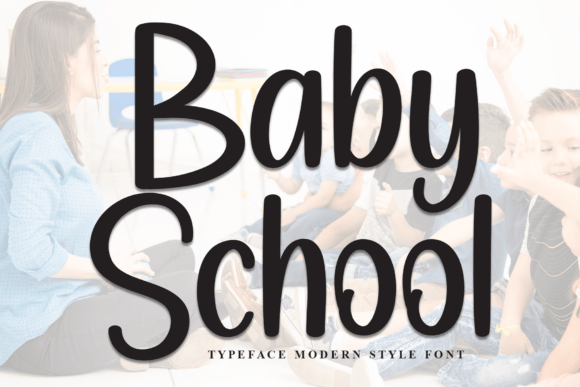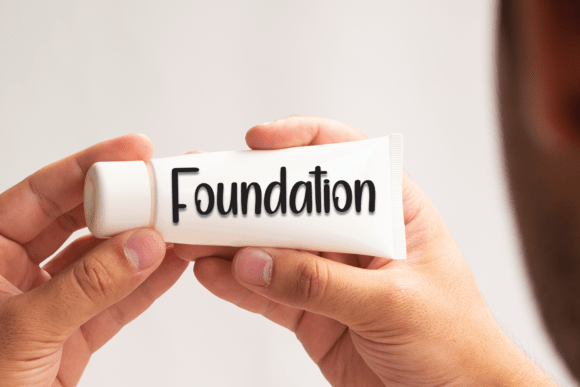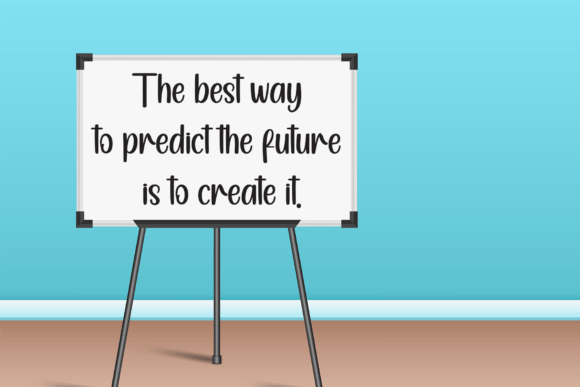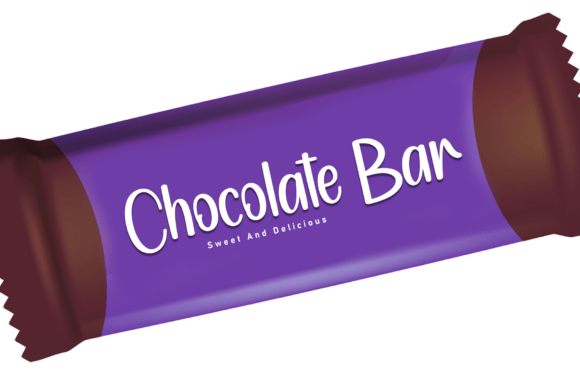
Baby School Font: Cute Handwritten Typography for Playful Designs!
About the Baby School Font
Let us introduce you to Baby School Font, where timeless design meets modern craftsmanship. Baby School is a modern handwritten font with a sweet and friendly tone. Its smooth curves and tall proportions give it a soft and approachable personality—perfect for preschool branding, children’s books, classroom posters, and anything playful or nurturing.
Baby School’s friendly personality makes it ideal for projects needing a touch of warmth and approachability. It excels in headlines, short bursts of text on packaging or social media, and children’s illustrations. However, its handwritten nature and relatively large x-height make it less suitable for body text or lengthy paragraphs. Avoid using it for UI elements or situations requiring high readability at small sizes.
Pairing Baby School works best with clean sans-serif fonts like Open Sans or Lato for a balanced contrast. For a more playful feel, consider pairing it with a rounded geometric sans-serif such as Poppins. A classic serif like Playfair Display can add a touch of sophistication to offset the informal feel of the handwritten style.
The font’s overall mood is undeniably cheerful and approachable; it projects a sense of youthful energy and care, making it a perfect choice for brands targeting a young audience or those emphasizing playfulness and kindness.
Baby School Font Usage Examples
Baby School Font Example